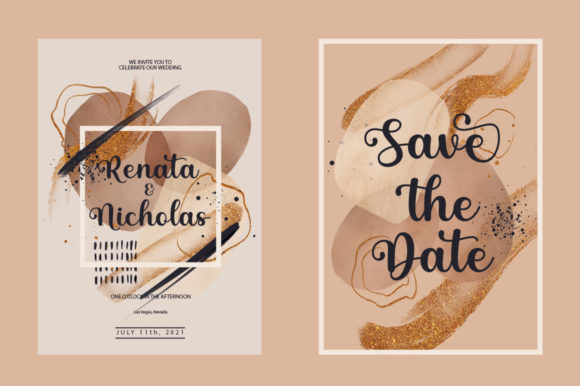
Nadine Font
db-ku.com - Script & Handwritten -- Nadine is an elegant and flowing handwritten font. It has beautiful and well balanced characters and as a result, it matches a wide pool of designs. Add it to your most creative ideas and notice how it makes them come alive!